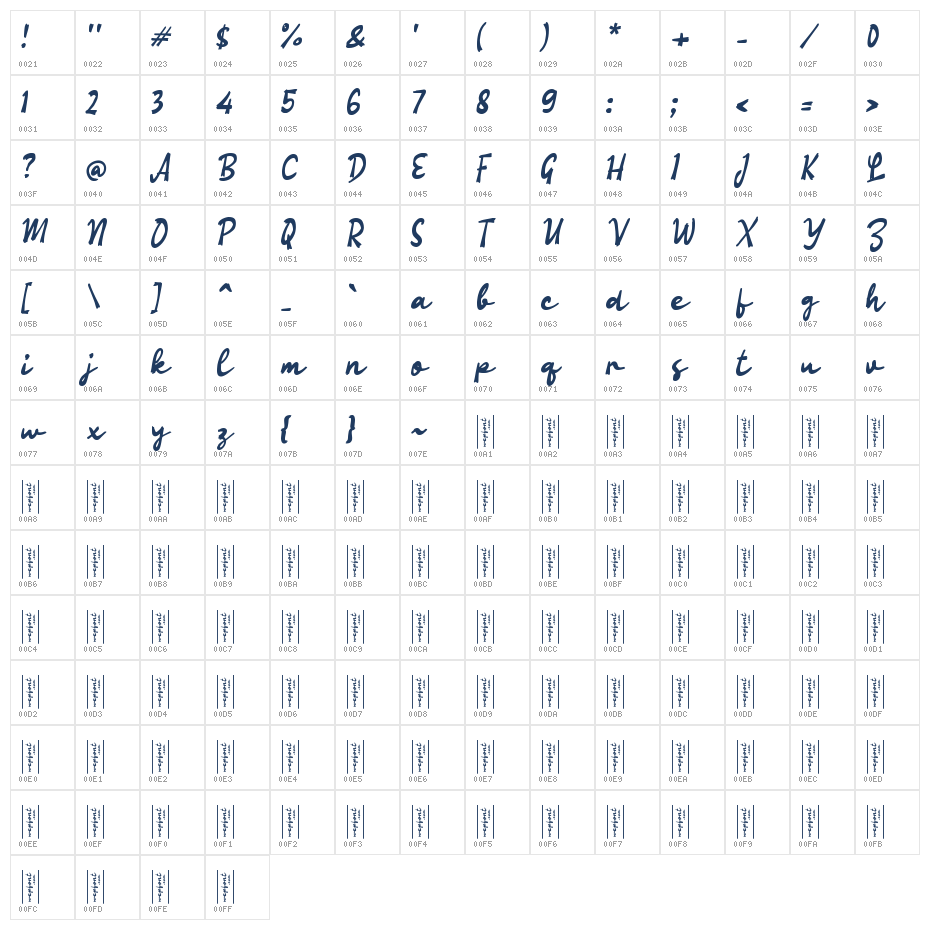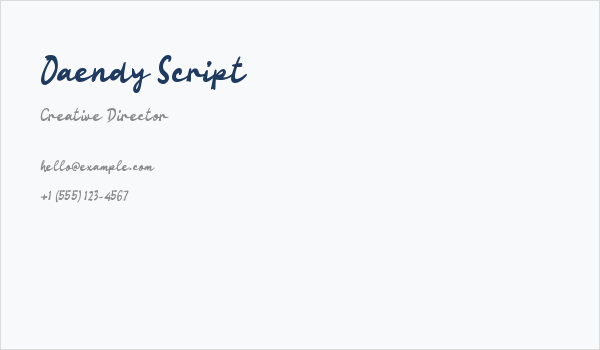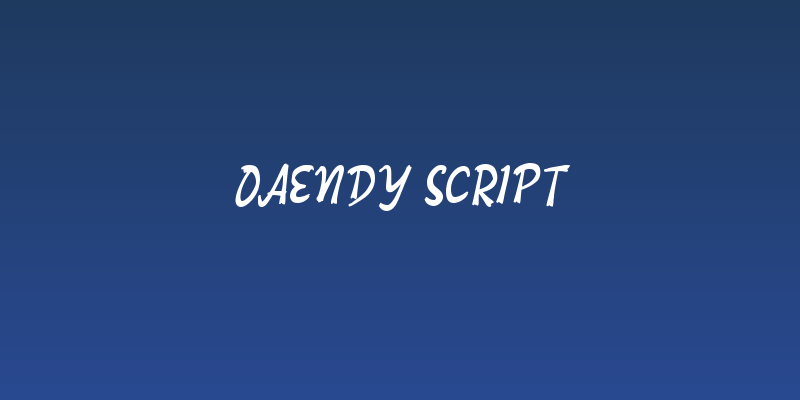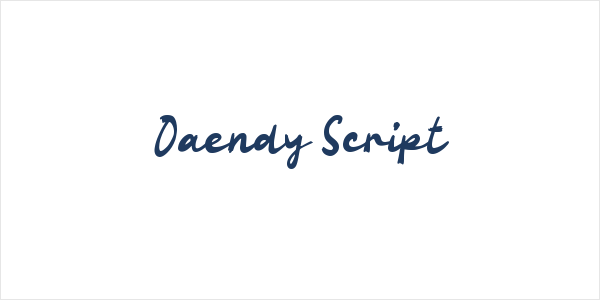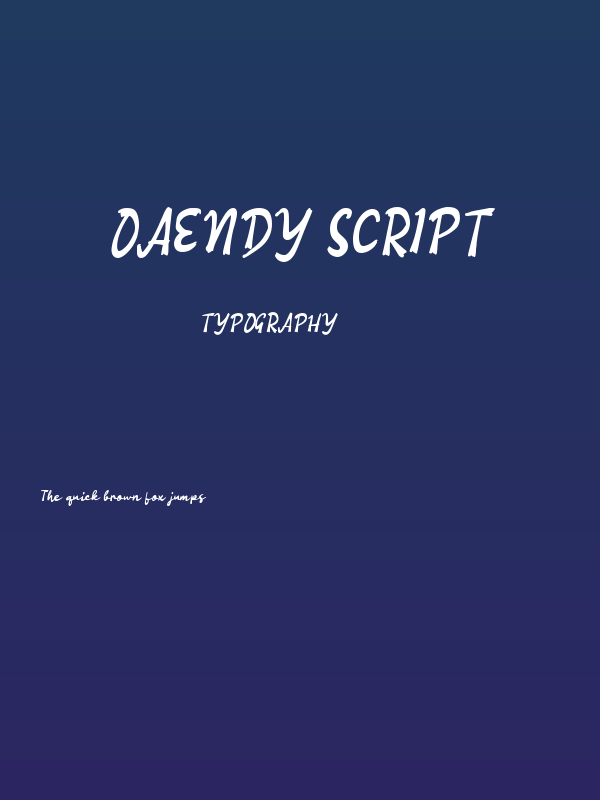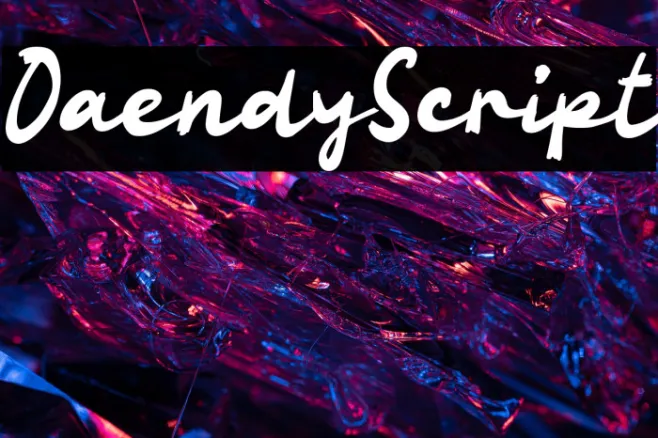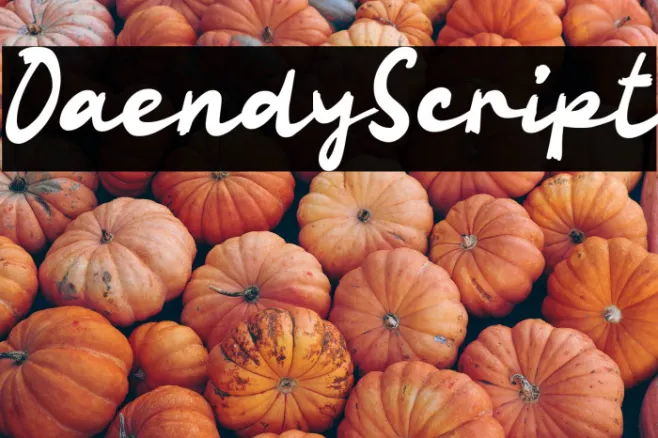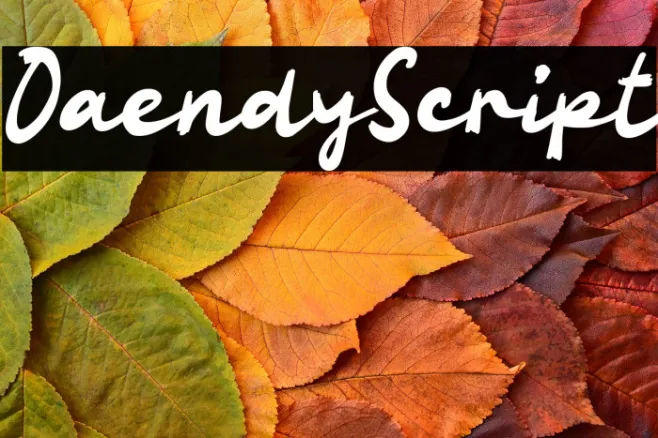
Oaendy Script Font
Oaendy Script Description
A casual, handwritten script font with a smooth, flowing style and slightly irregular strokes, giving it an informal and friendly appearance.
| Overall Style | Casual, Friendly, Handwritten |
| Use Case | Headlines, Logos, Invitations, Greeting cards |